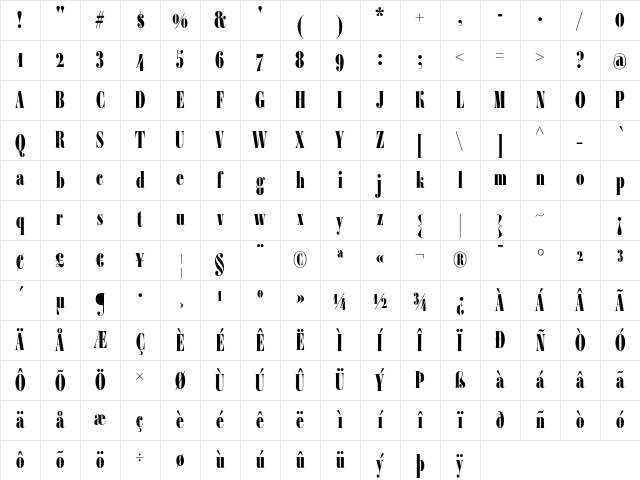
Ambroise Francois Black
Design Context for Ambroise Francois
Ambroise Francois is a composed and adaptable typeface that performs quietly and consistently across a wide range of design contexts.
Pro Tip: Use Ambroise Francois in both headline and body roles to test its range before committing to a single application.